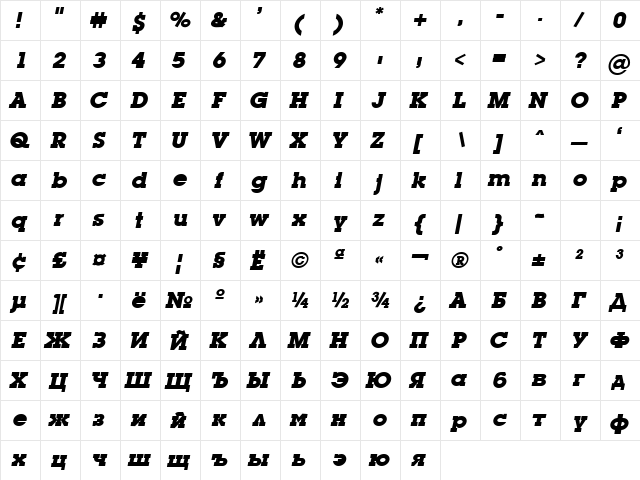
Luga Bold Oblique Font Preview
| Style | Bold Oblique |
Design Context for Luga Typeface
Luga takes a measured approach to typography — its balanced proportions and neutral character make it a reliable workhorse for both digital and print work. Its italic angle brings a sense of urgency and motion to the letterforms. The heavy weight commands attention and anchors typographic hierarchies.
Pro Tip: Try Luga for annotation and caption copy alongside an upright companion — the contrast in angle creates a dynamic but ordered typographic system.